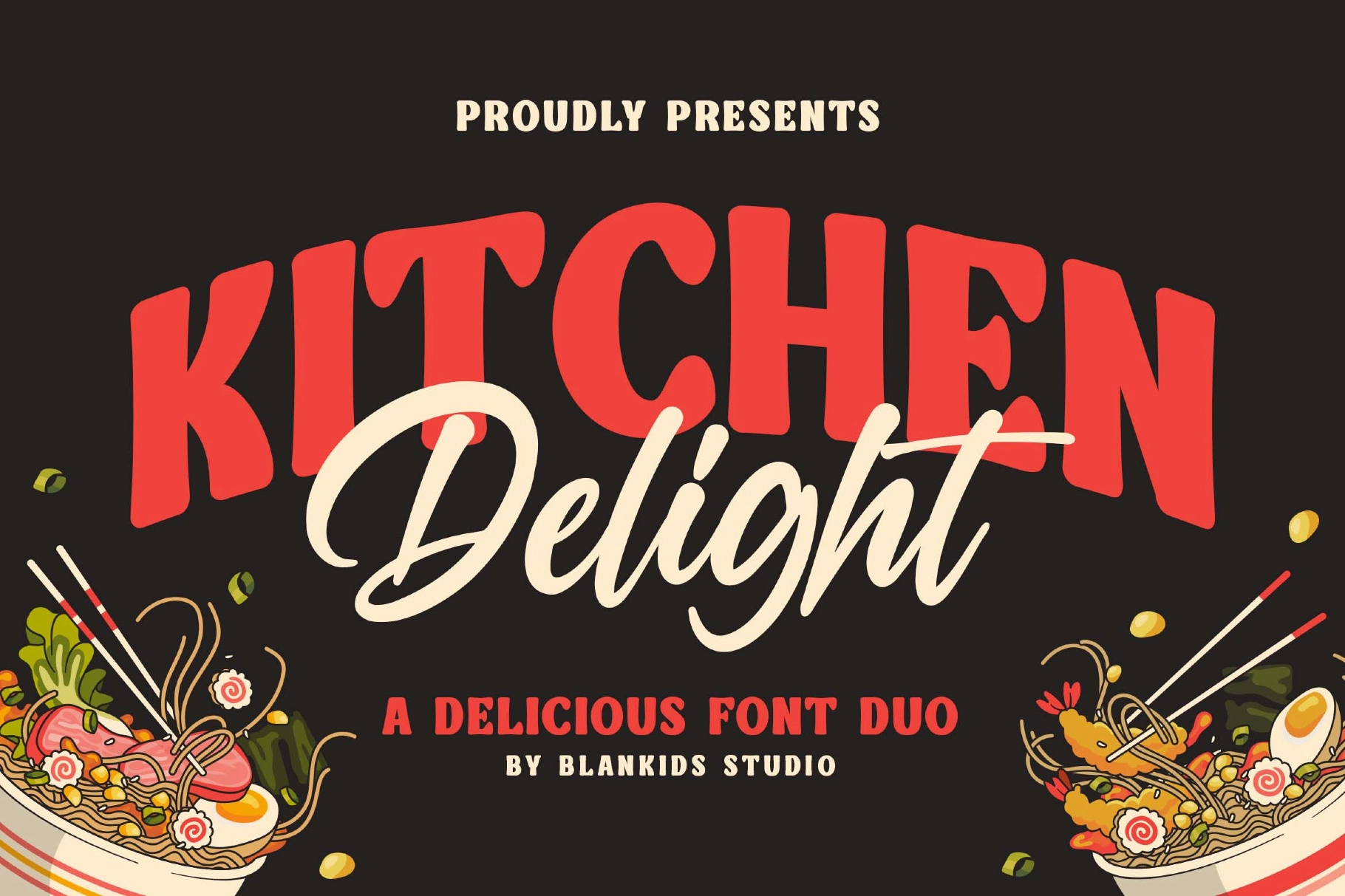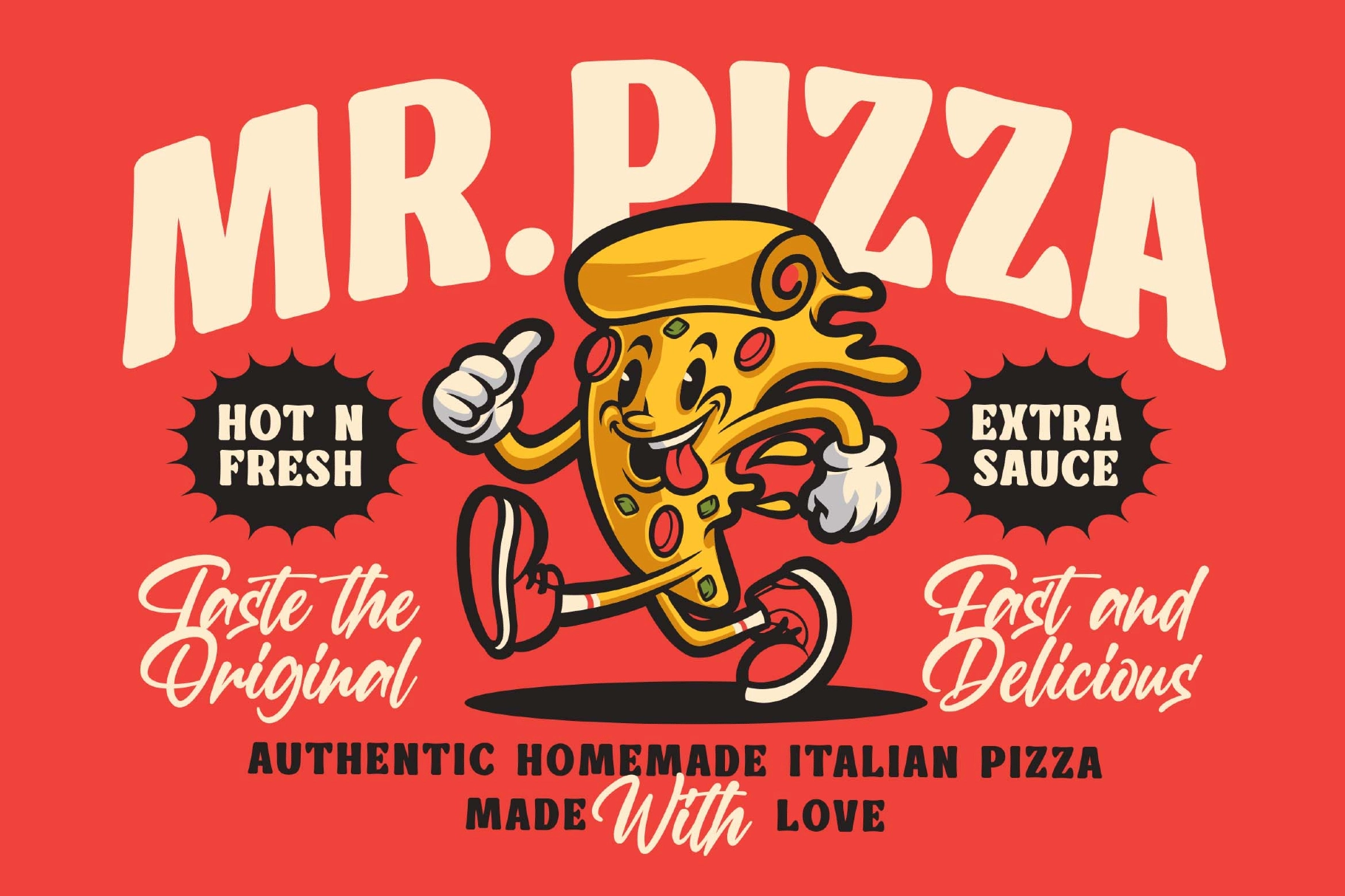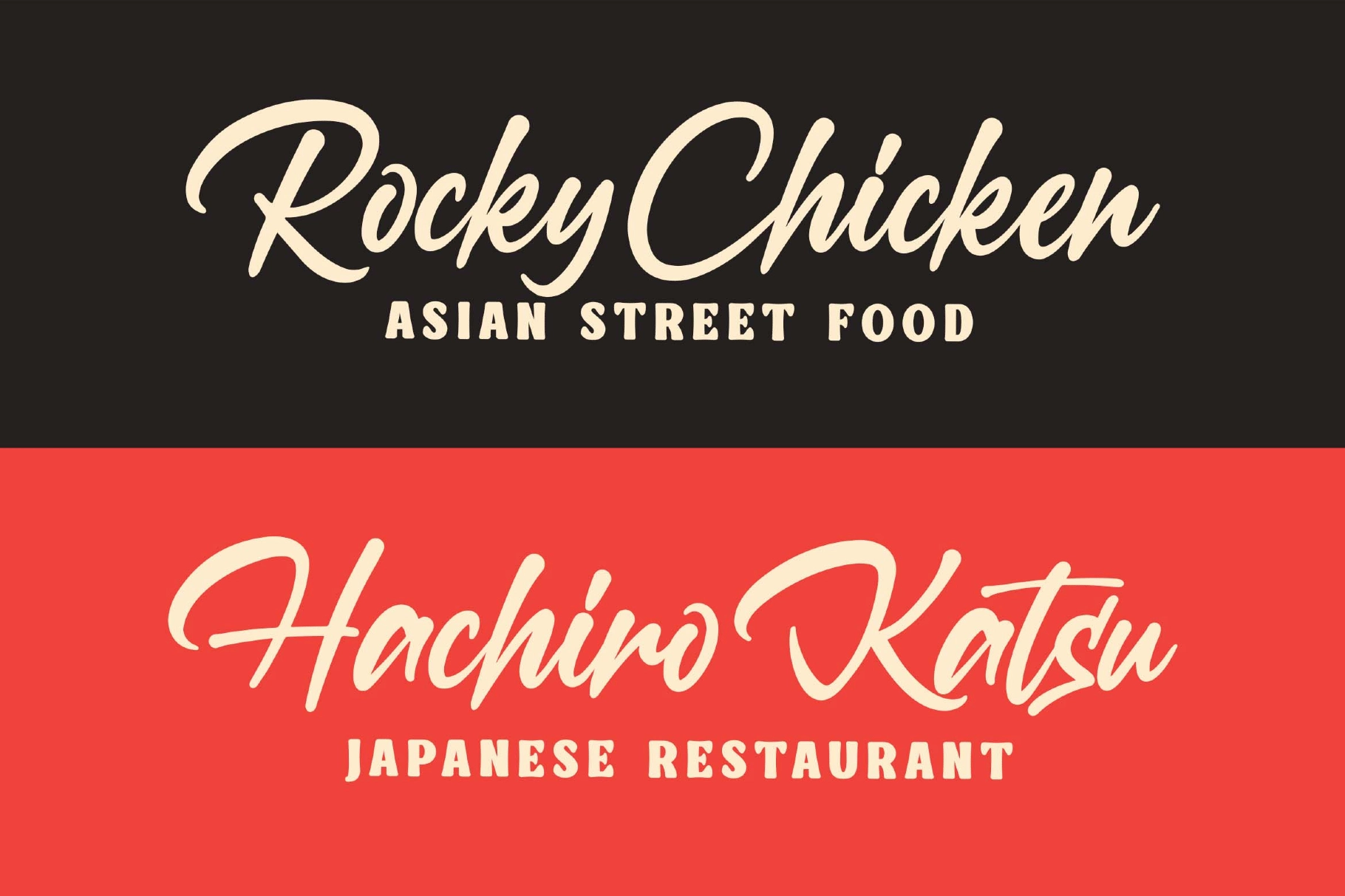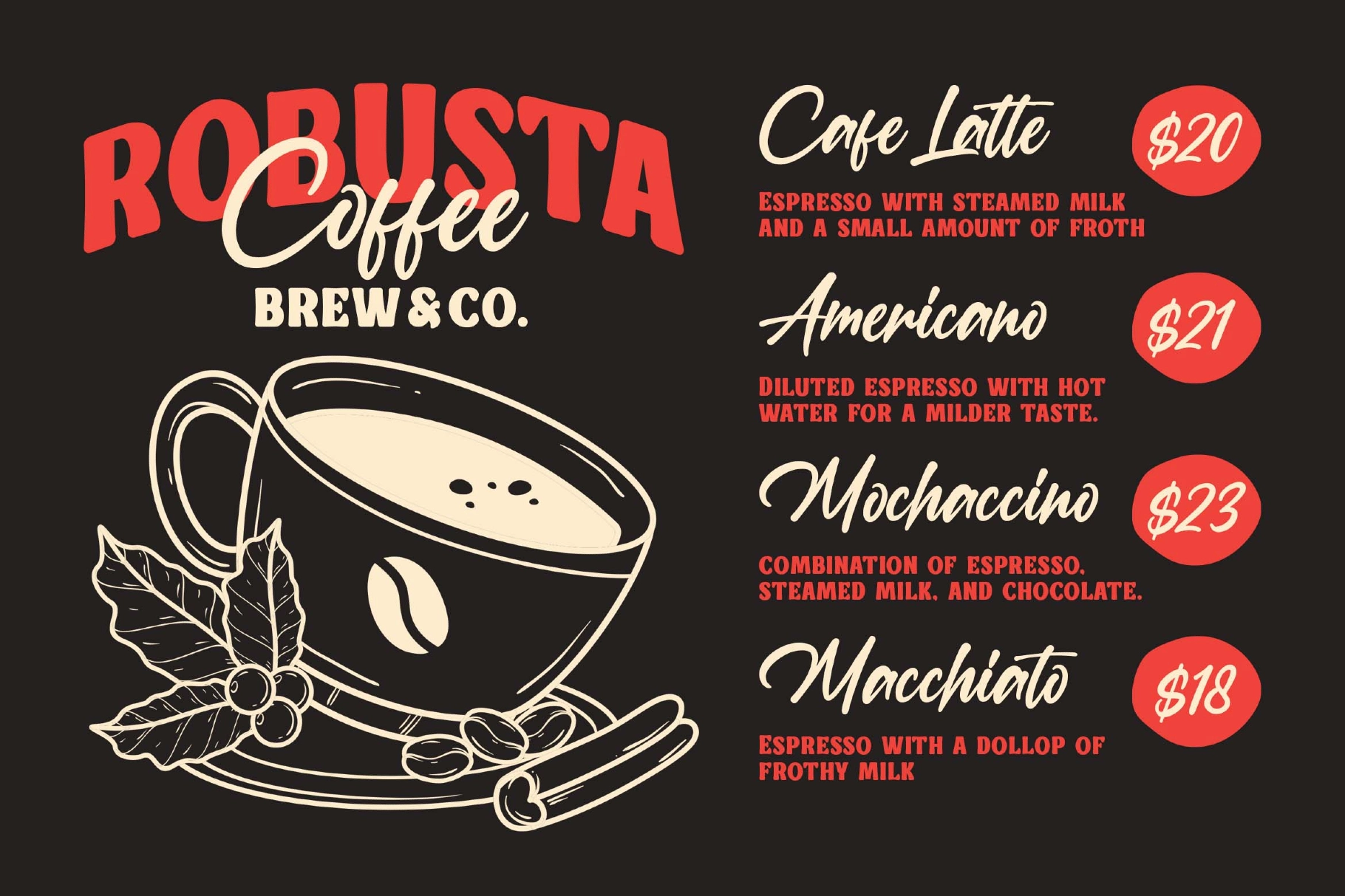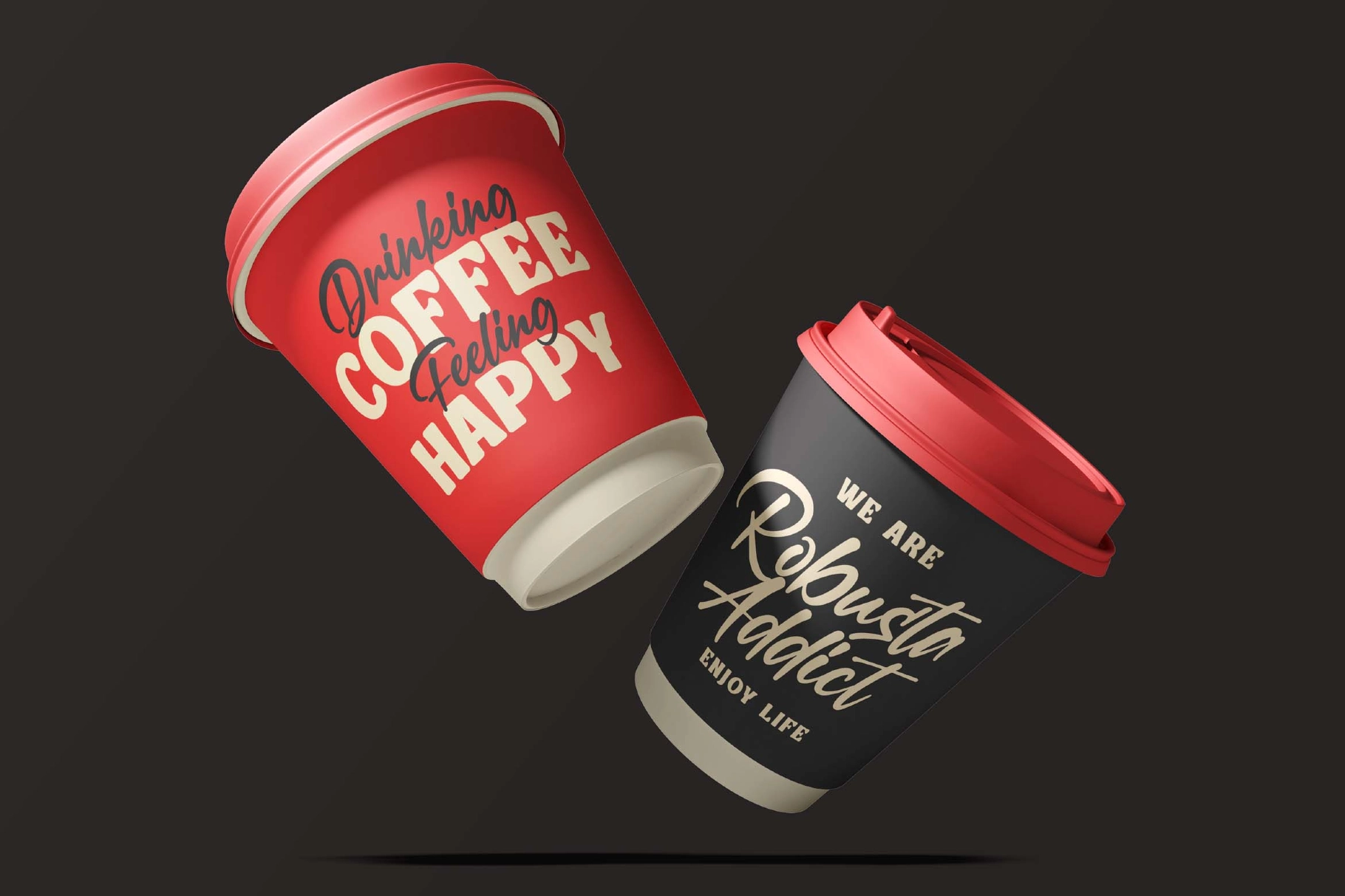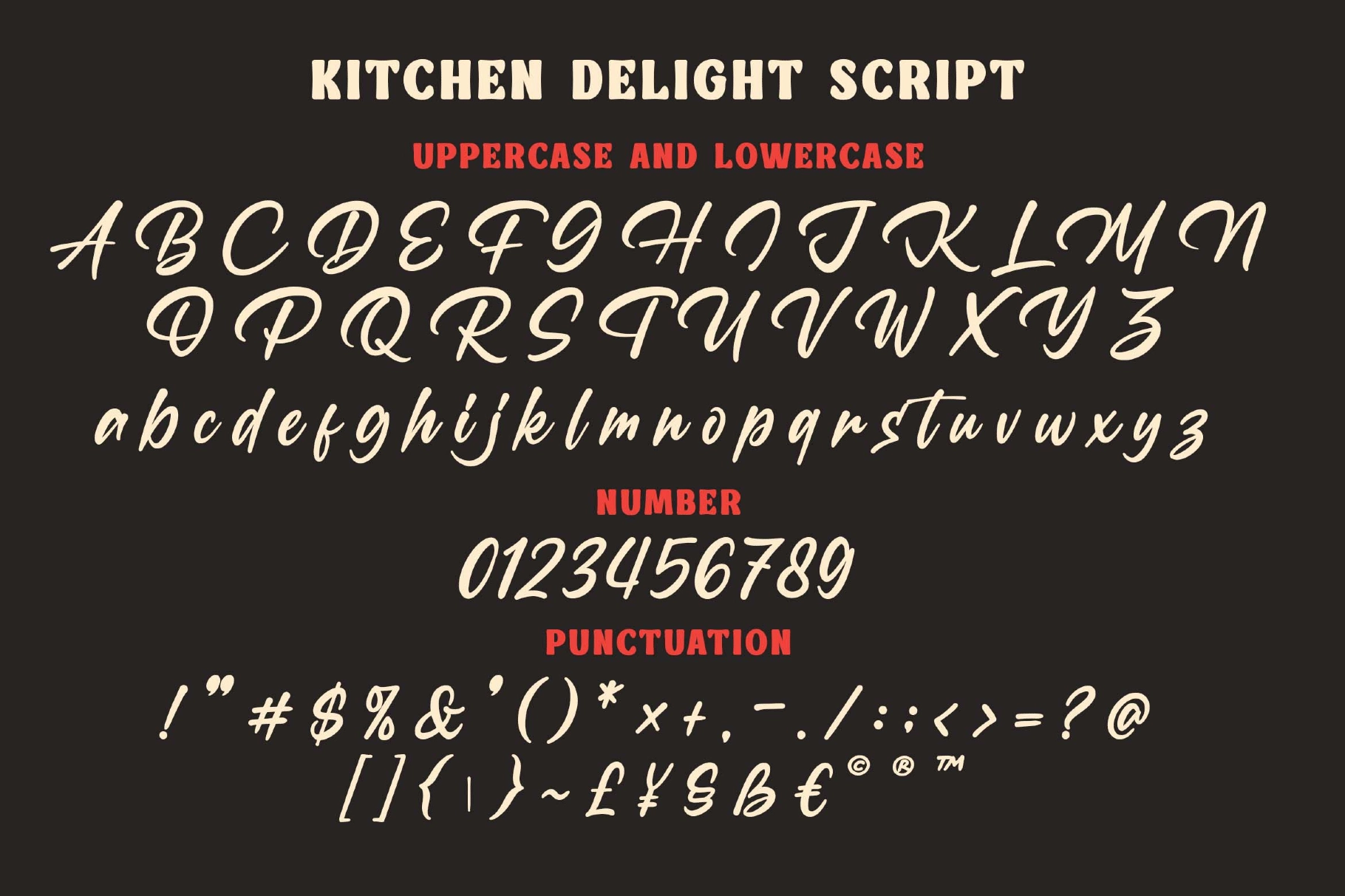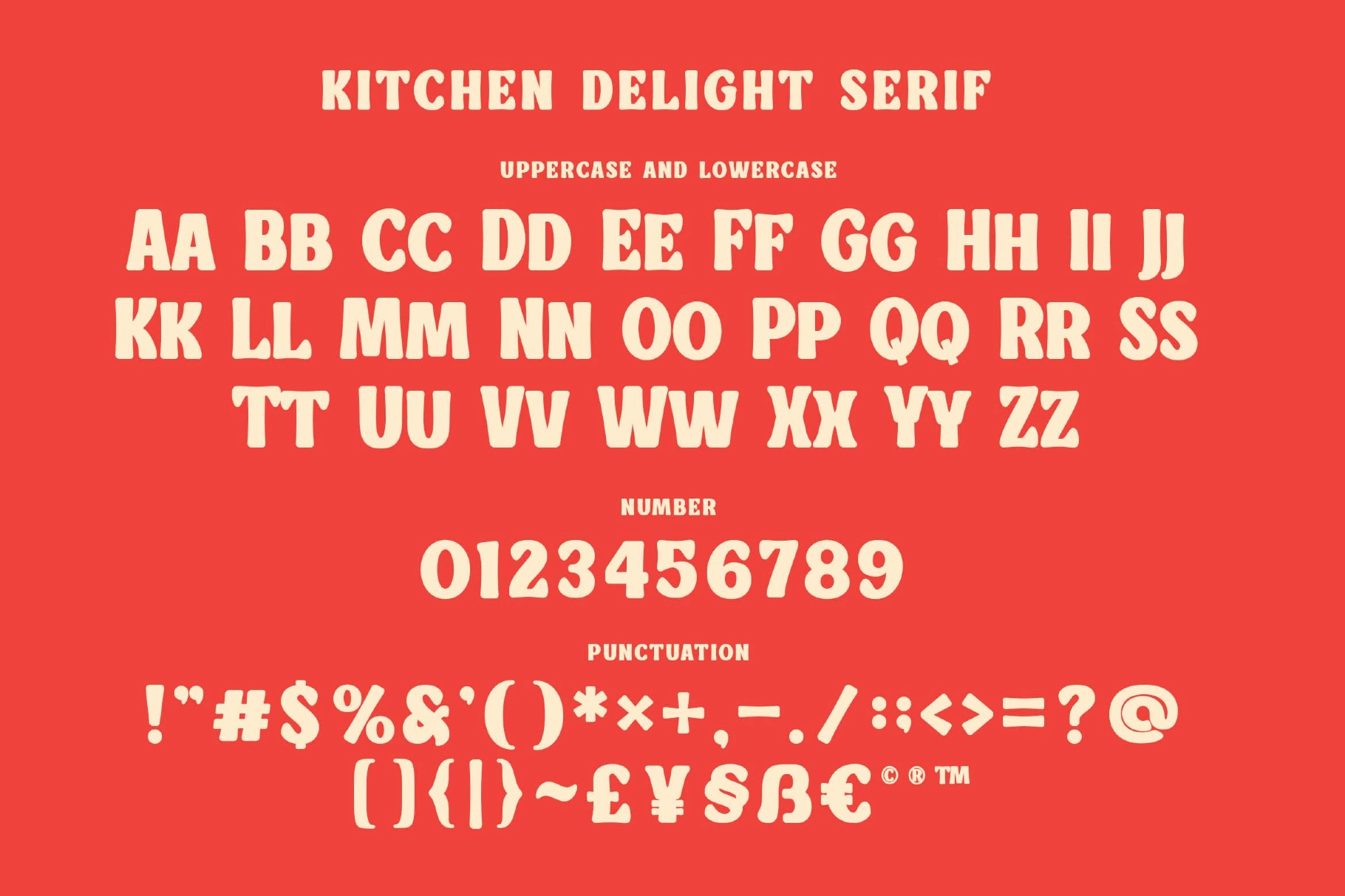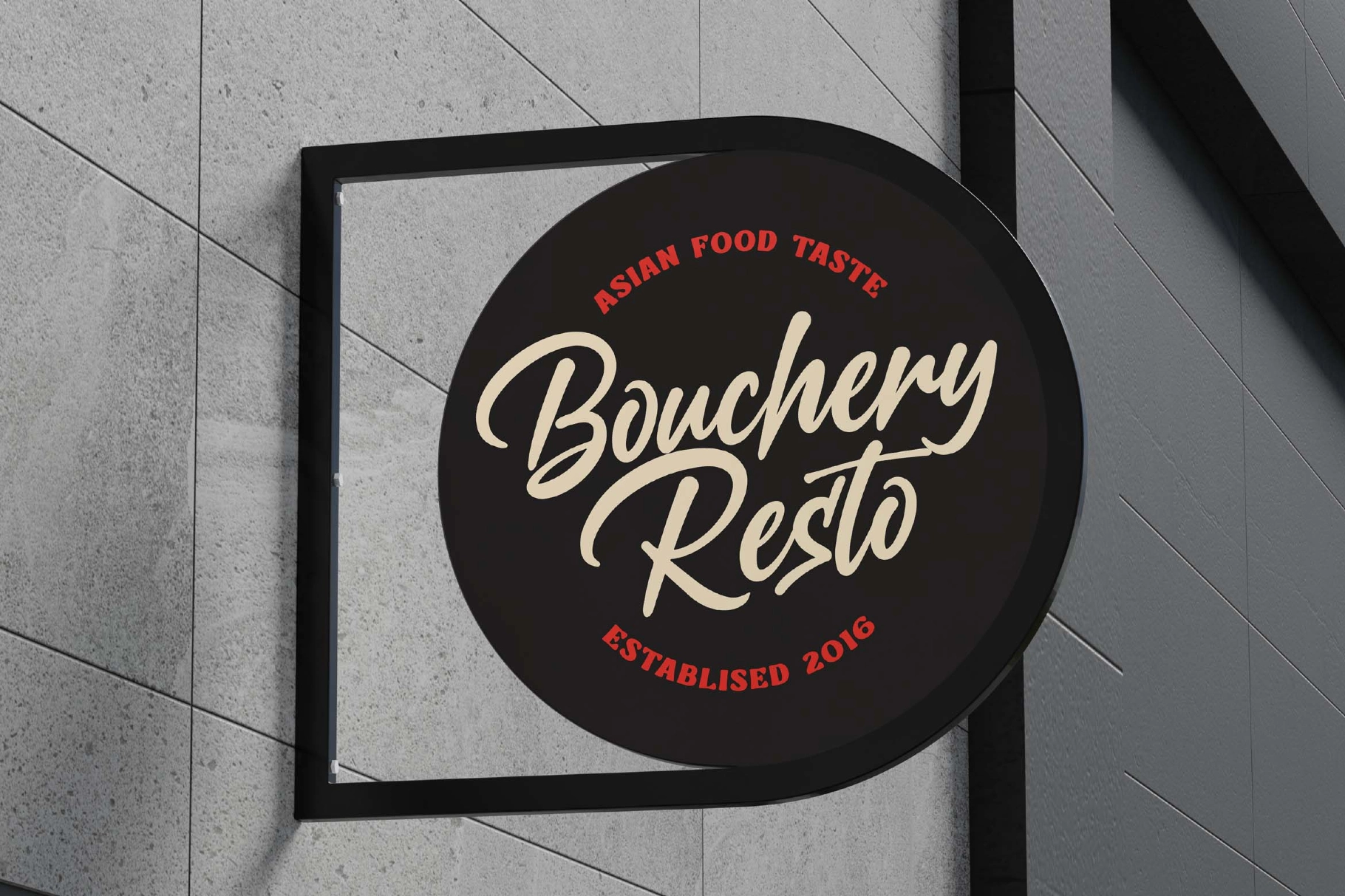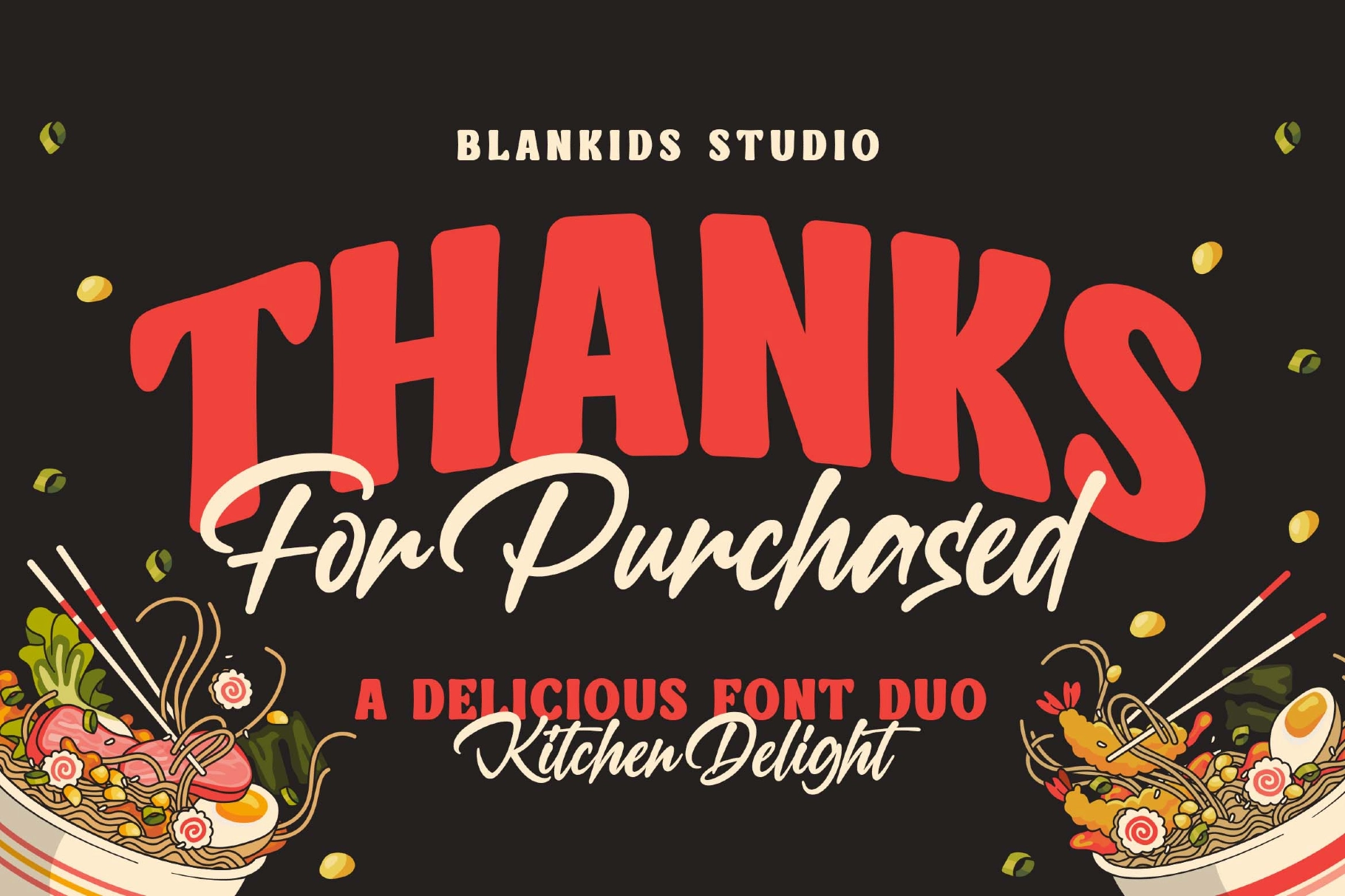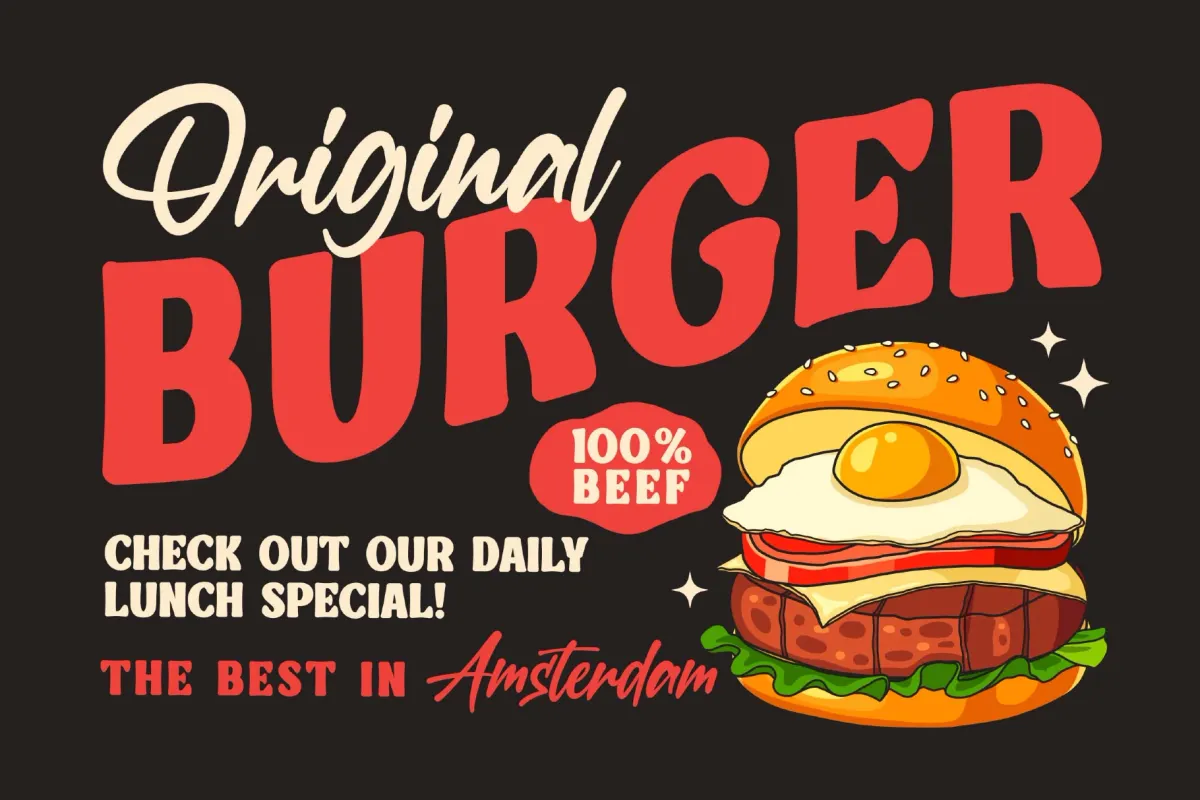
Kitchen Delight a Delicious Font Duo
Kitchen Delight
Kitchen Delight is a tasty retro font duo made to serve bold, feel-good headlines with a handcrafted flavor. It comes with two complementary styles — a chunky display Serif for loud titles and a smooth, energetic Script for appetizing accents. Together they create a perfect vintage diner / street-food vibe for menus, packaging, posters, badges, logos, and brand identities.
From burgers and pizza to coffee shops and food trucks, Kitchen Delight brings a warm, nostalgic tone with playful curves, strong presence, and easy readability. Mix the Serif and Script in one layout to get that classic “old-school signage” look instantly.